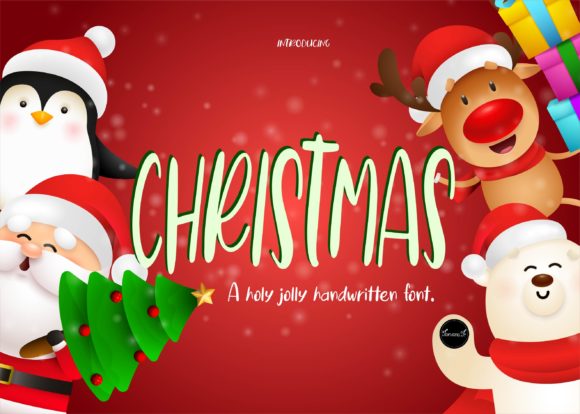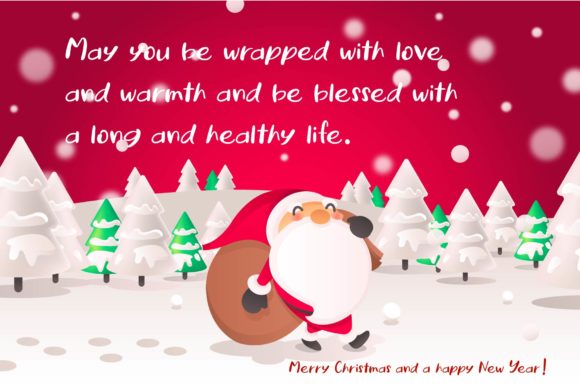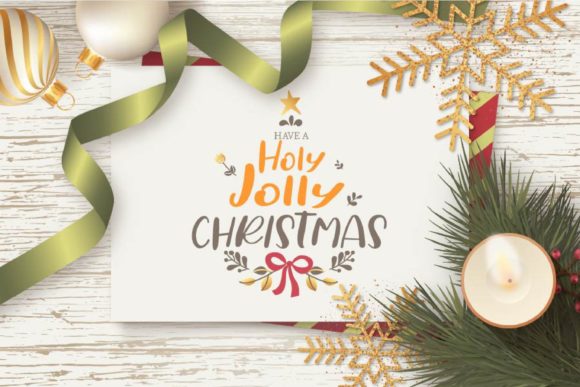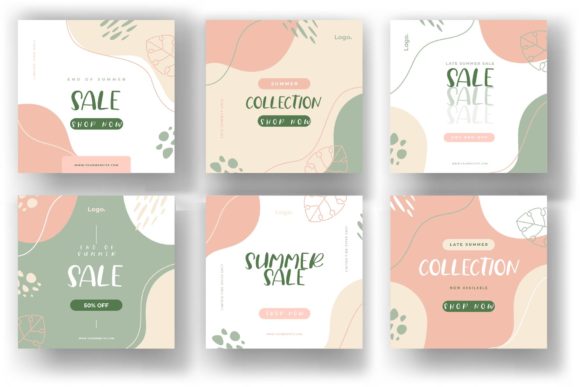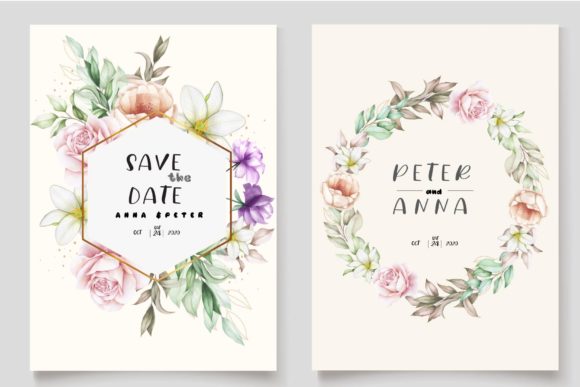
Christmas is a sweet, tall and simple handwritten font. Whether you’re looking for fonts for Instagram or calligraphy scripts for DIY projects, this font will turn any creative idea into a true piece of art!